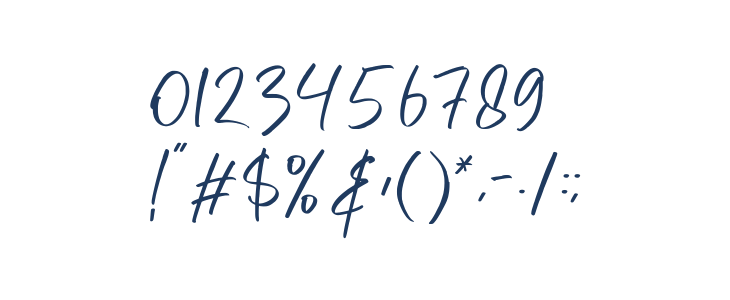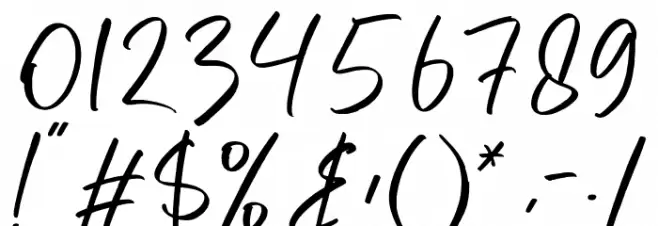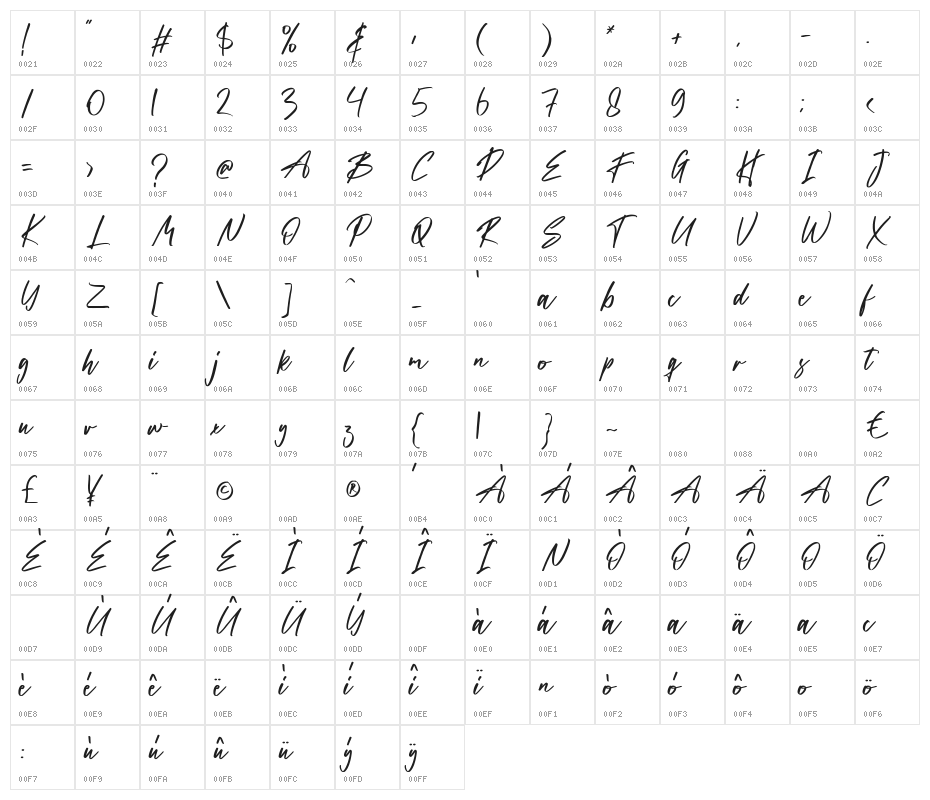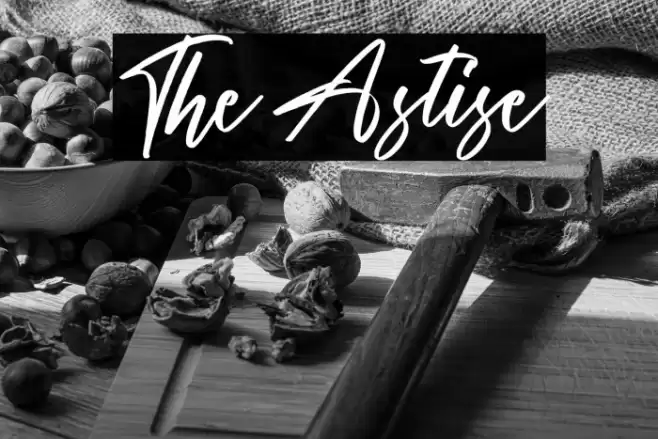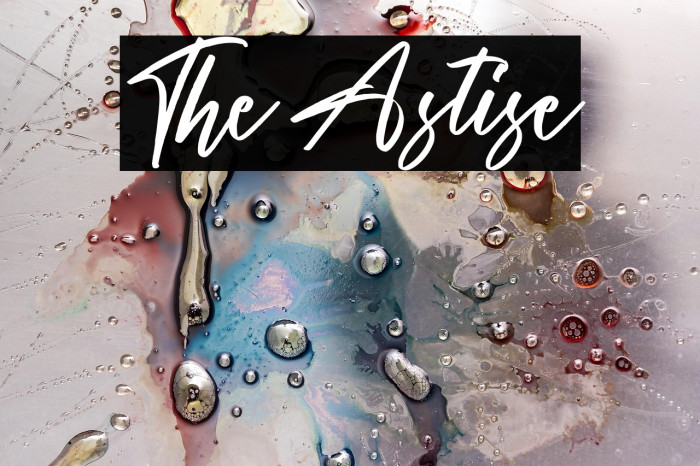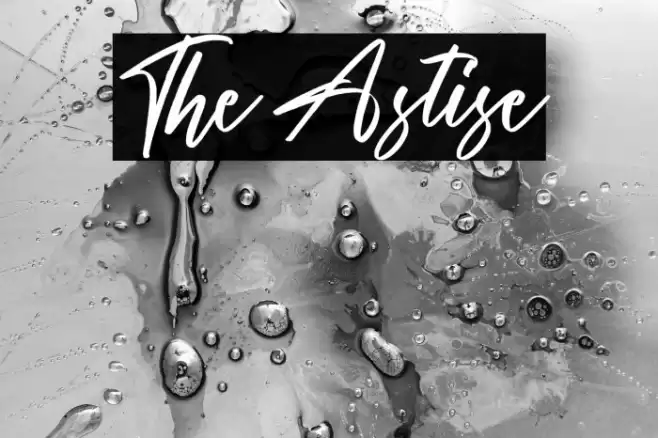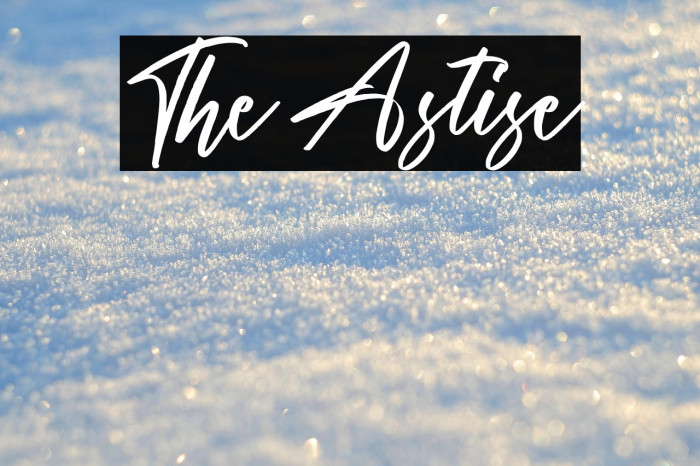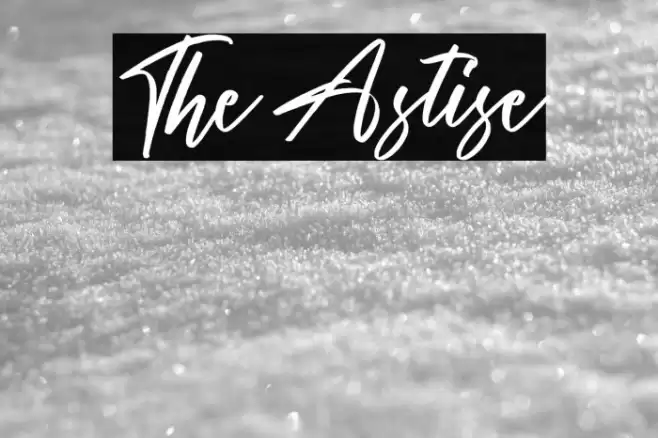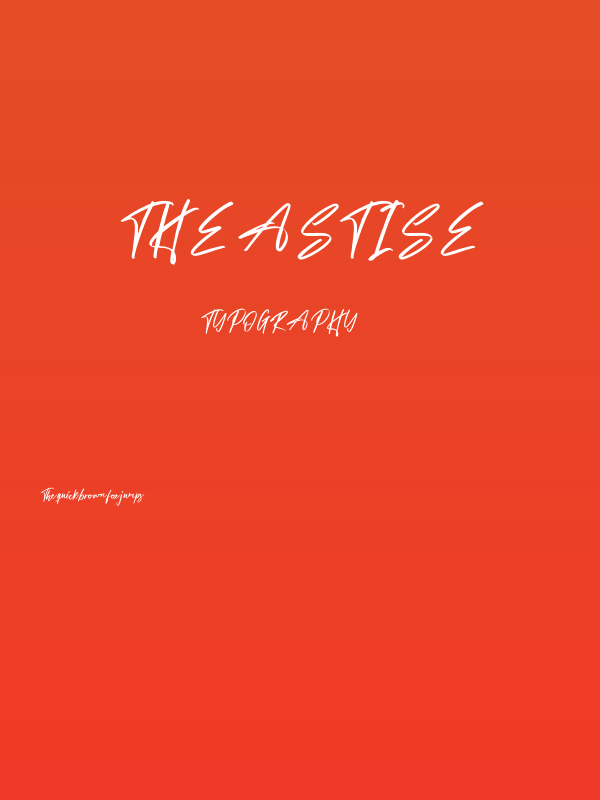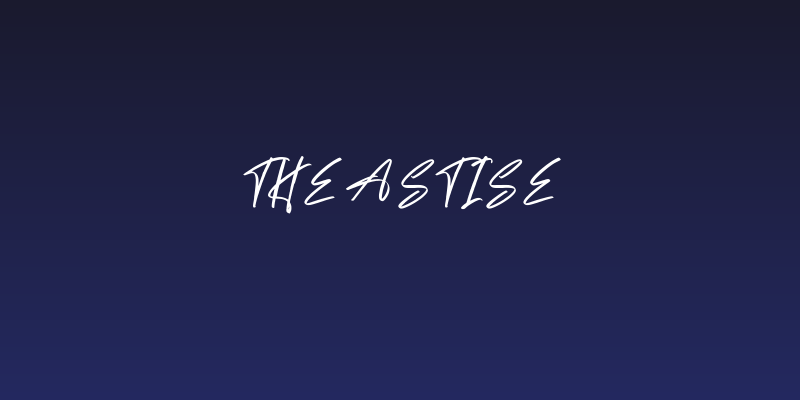
The Astise Font
The Astise Description
This font exudes a dynamic and expressive style, characterized by its fluid, handwritten appearance. The letters are connected with a smooth, flowing motion, giving it an elegant and personal touch. The uppercase letters are bold and slightly slanted, while the lowercase letters maintain a consistent flow, enhancing readability. The numbers and special characters follow the same fluid style, integrating seamlessly with the alphabet. This font's overall aesthetic is both modern and artistic, making it suitable for creative and informal applications.
| Proposed Projects | Ideal for wedding invitations, personal branding, greeting cards, and artistic projects. |